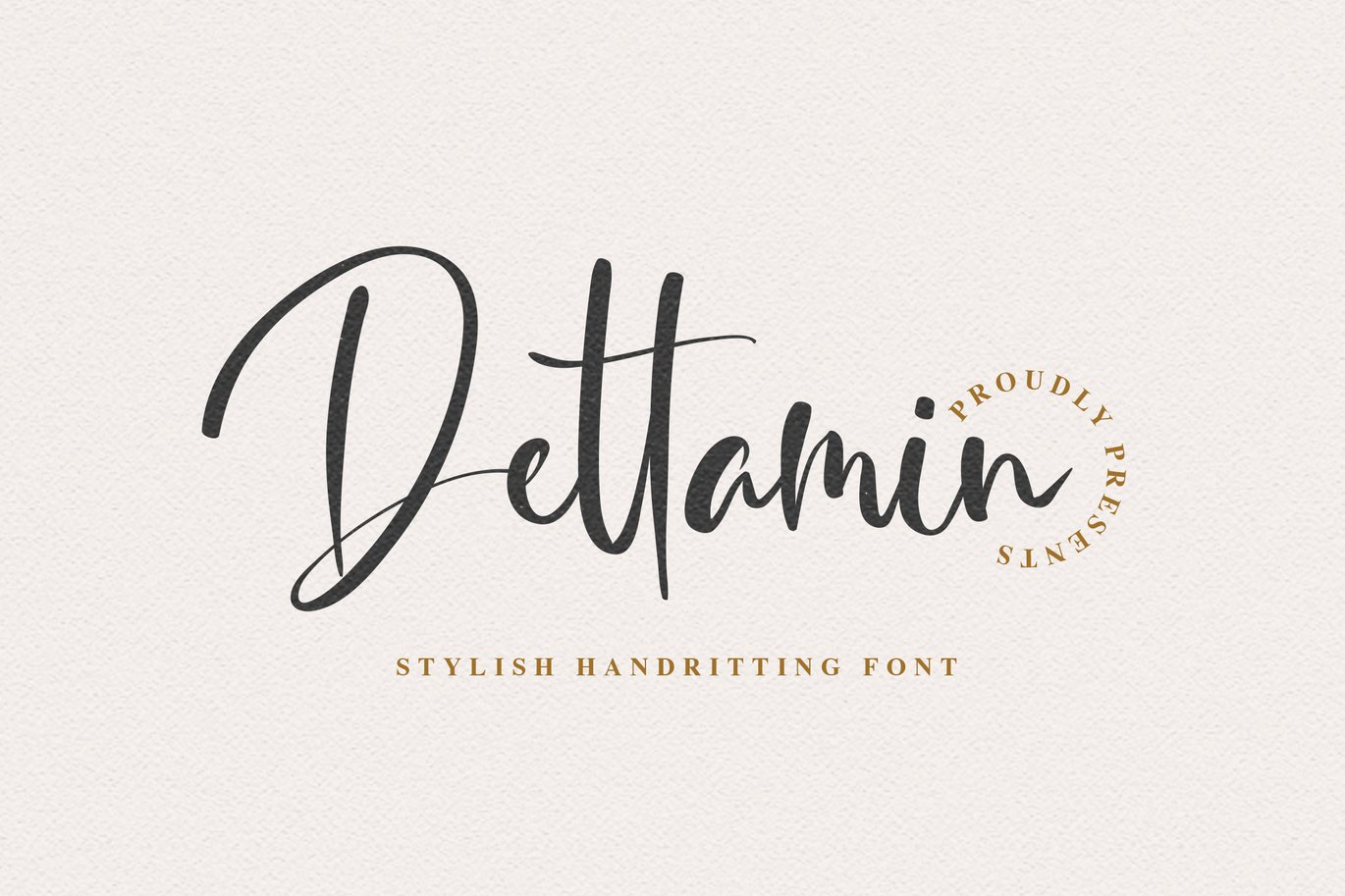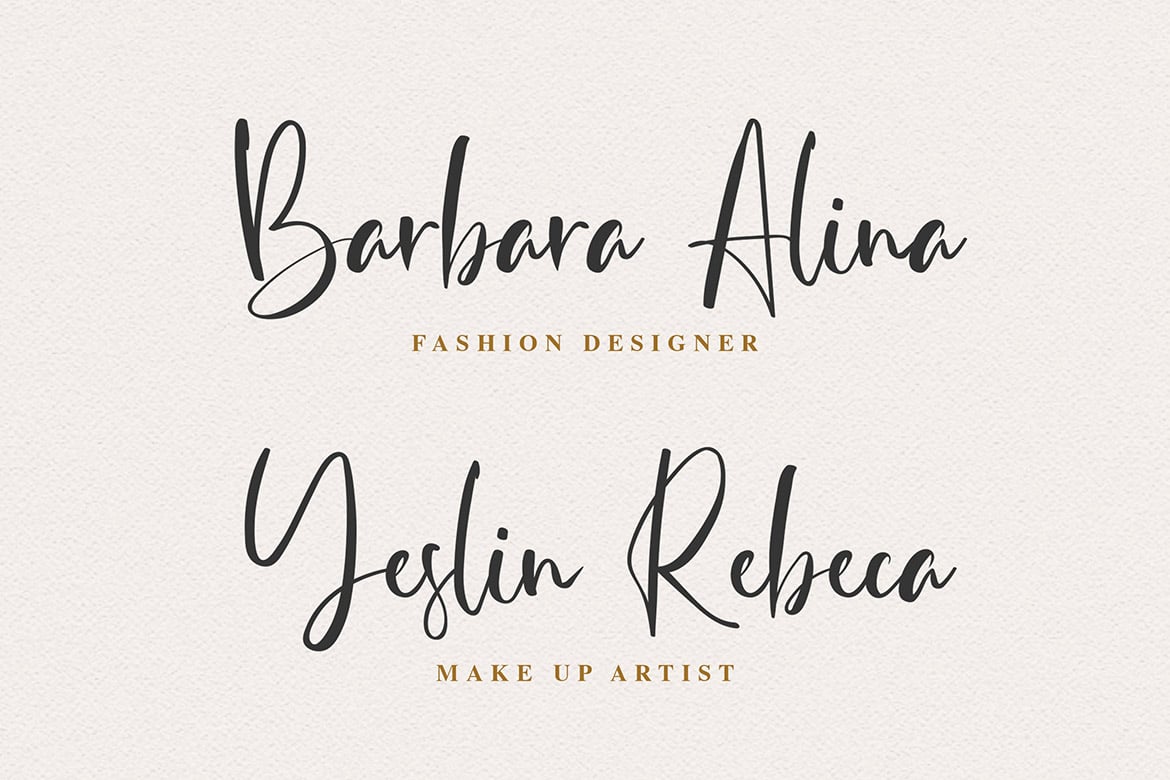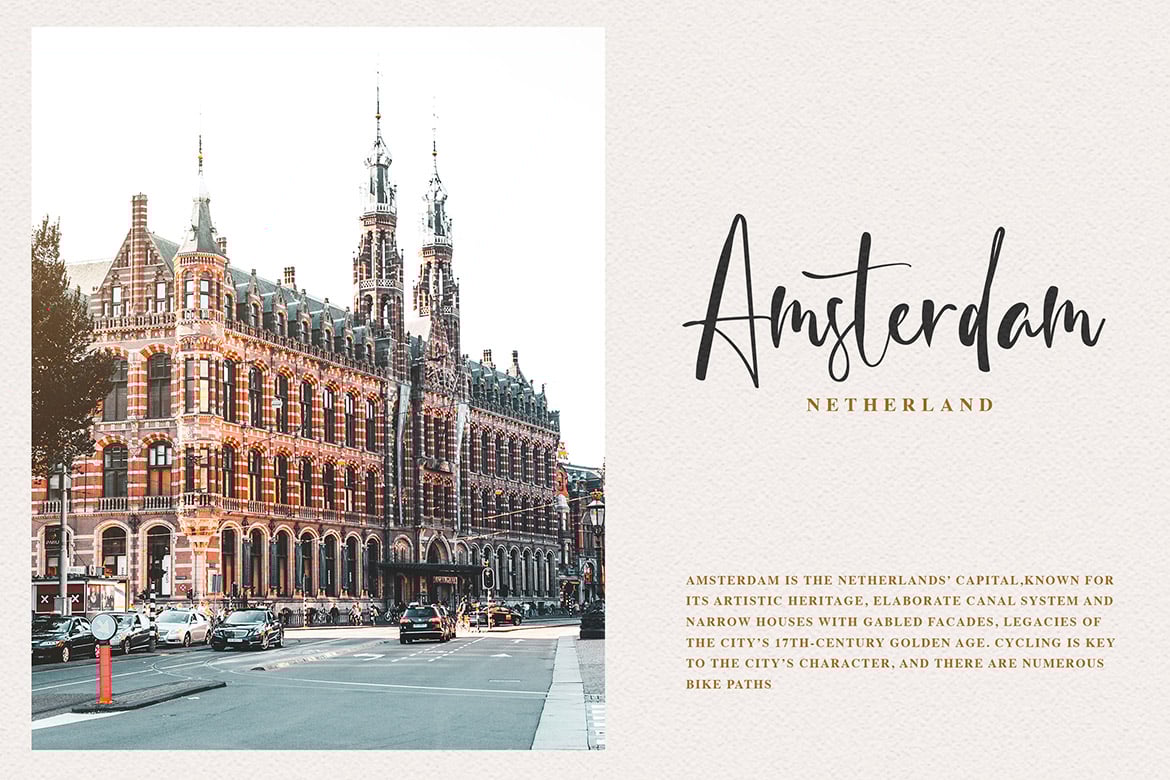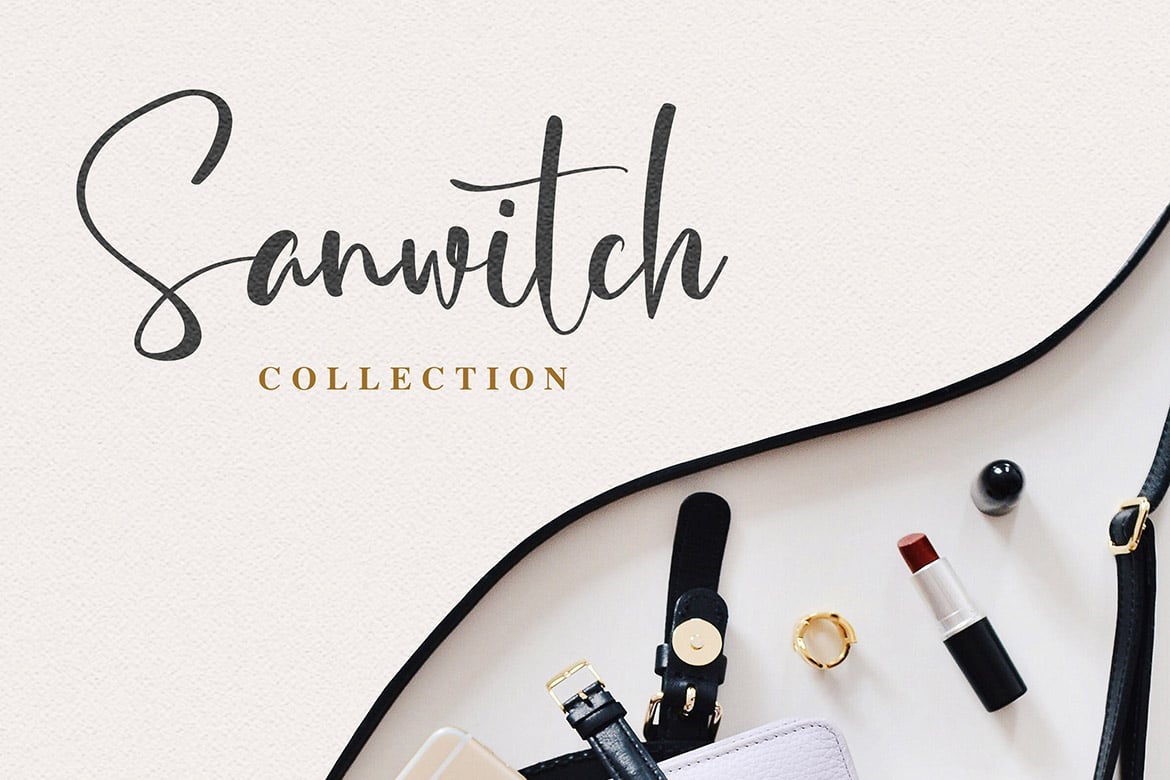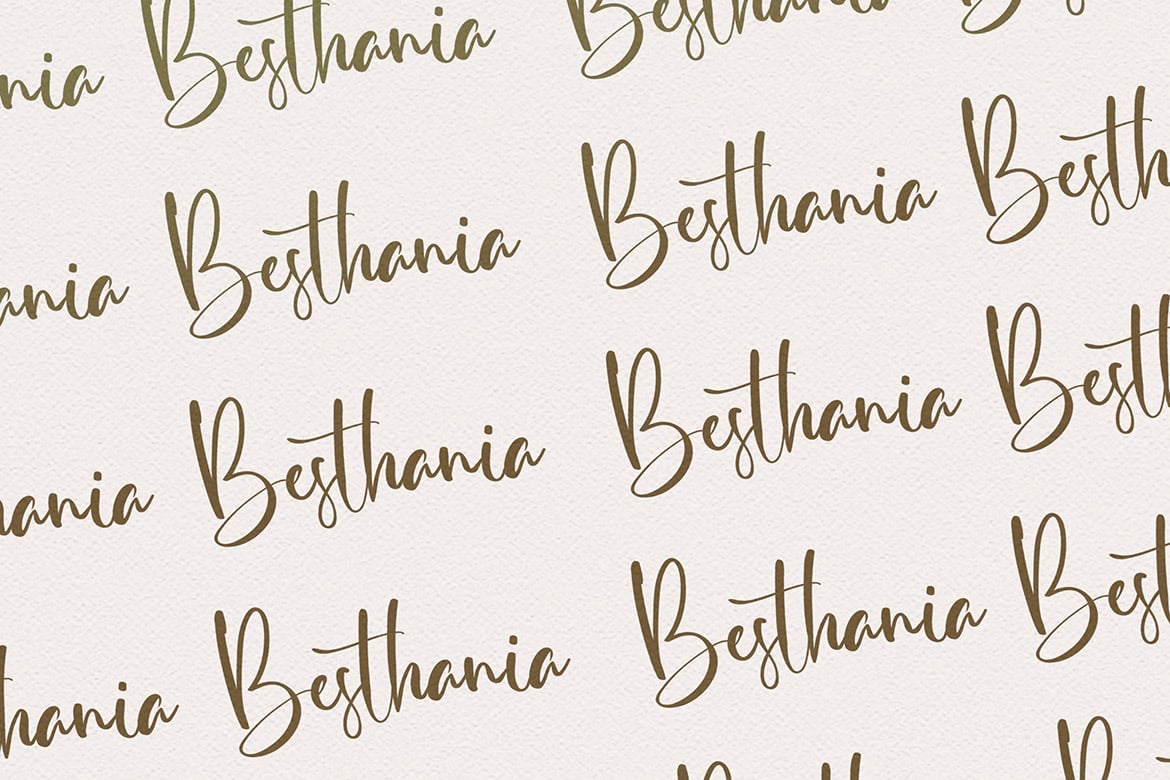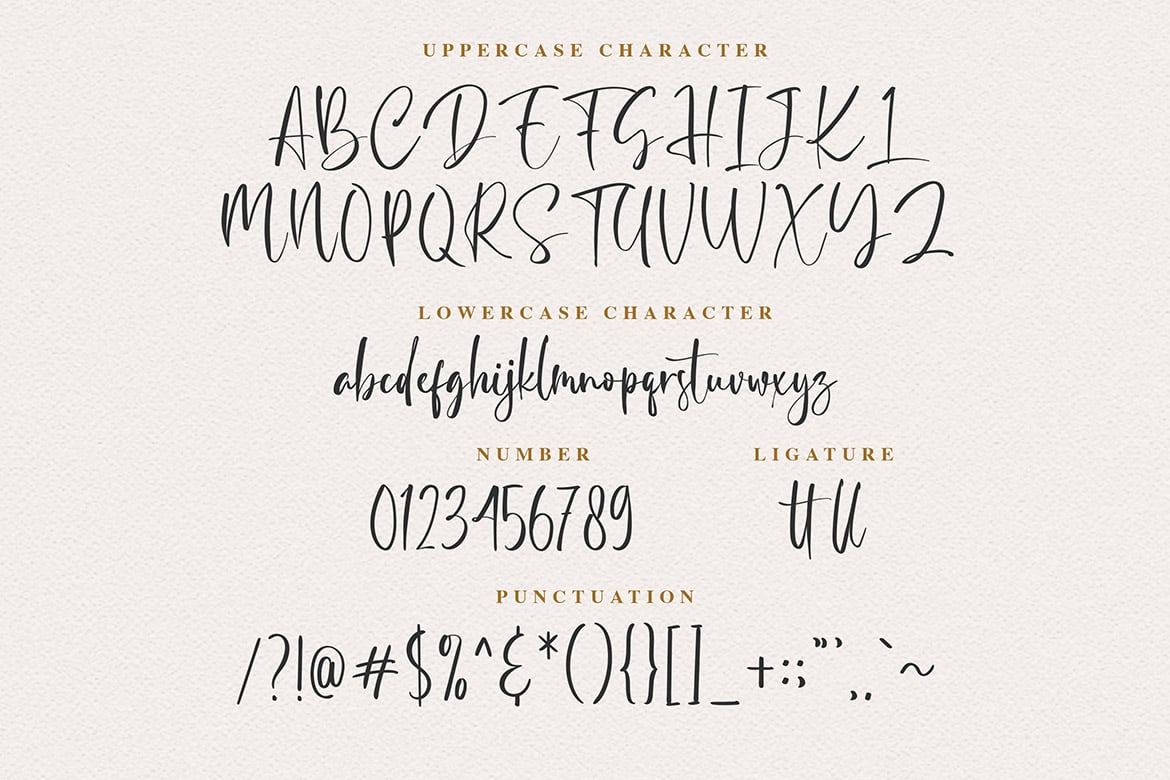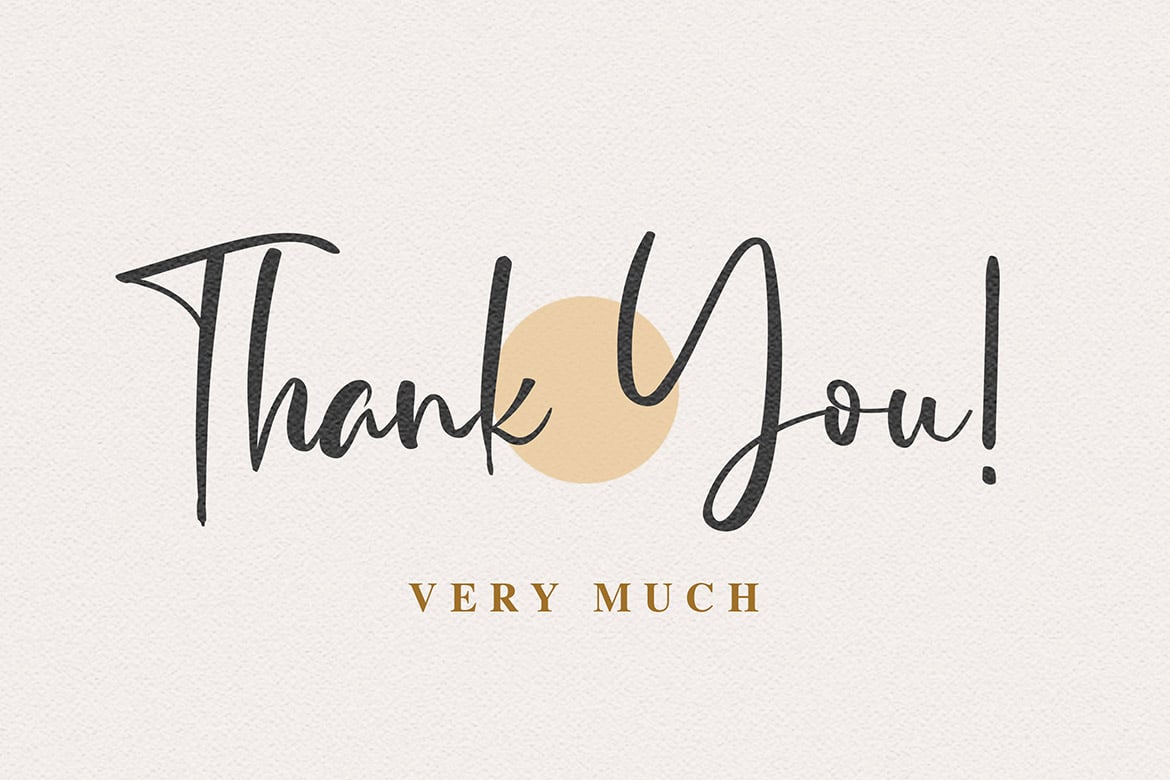
Dettamin – Stylish Handwriting Font
Introducing of our new product the name is Dettamin Stylish Handwriting Font. inspired by modern calligraphy and girly calligraphy style, Dettamin is good for logotype, wedding invitation design, badge, headline, signature, packaging and any more.